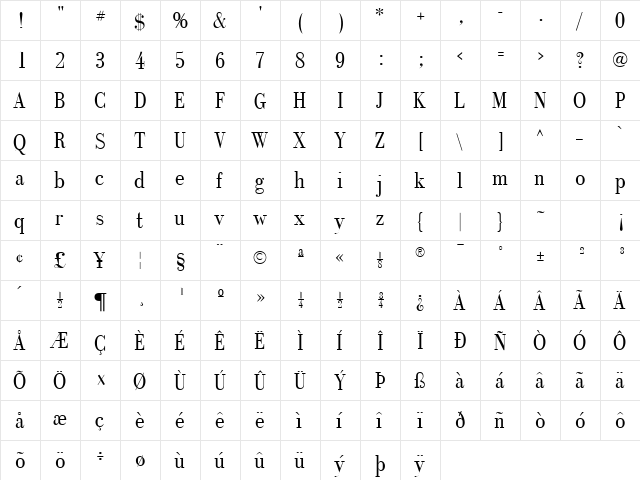
Recital SSi Regular
Design Context for Recital SSi Typeface
Recital SSi is a composed and adaptable typeface that performs quietly and consistently across a wide range of design contexts.